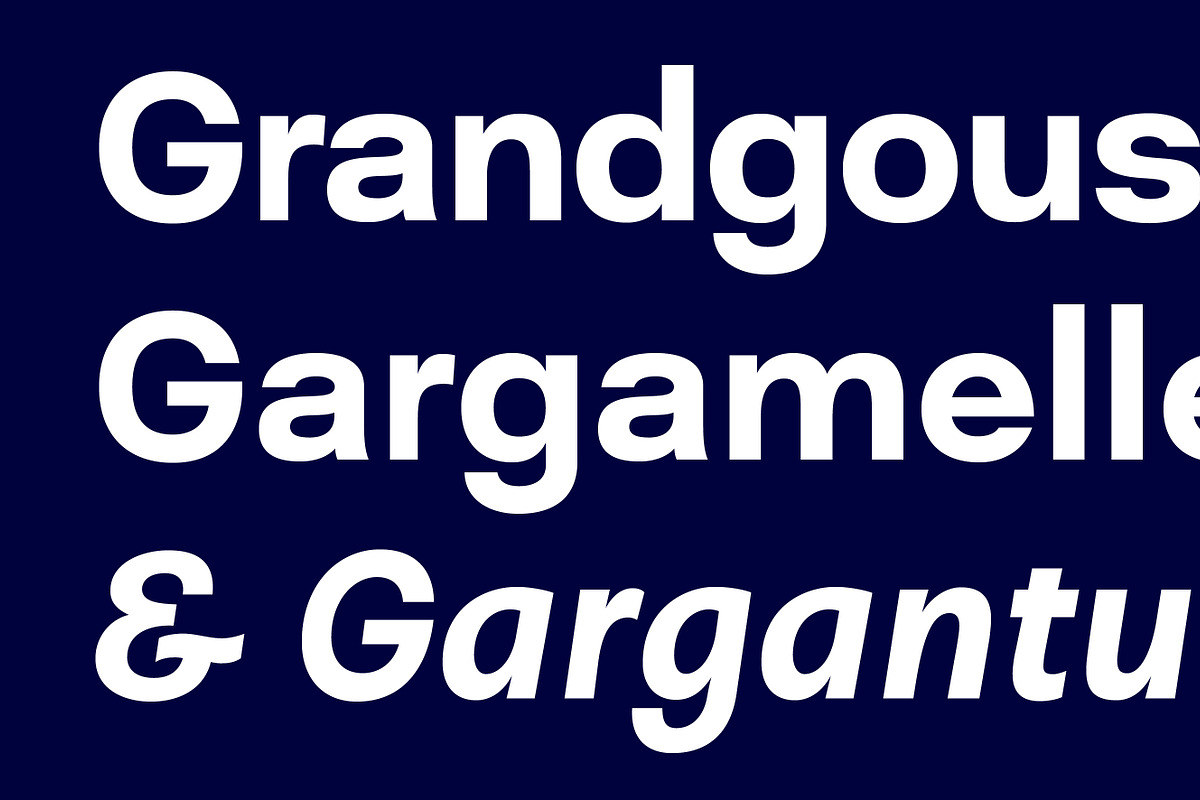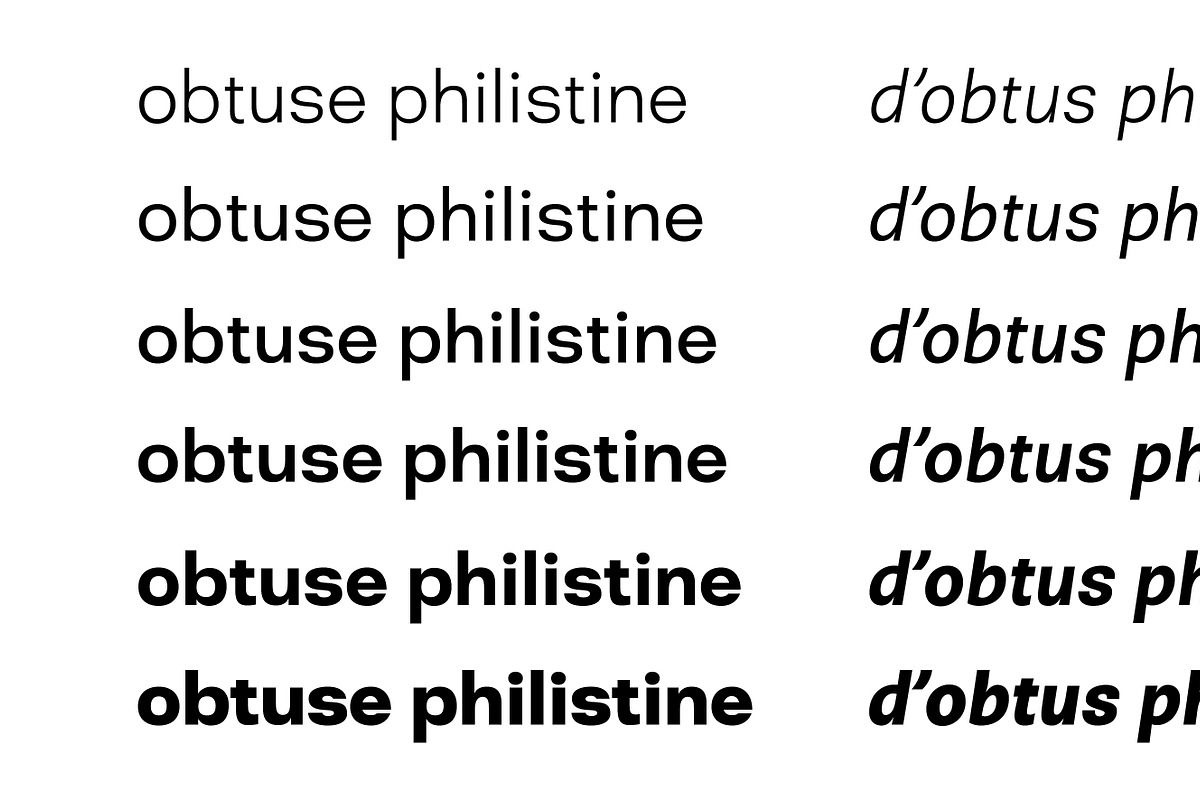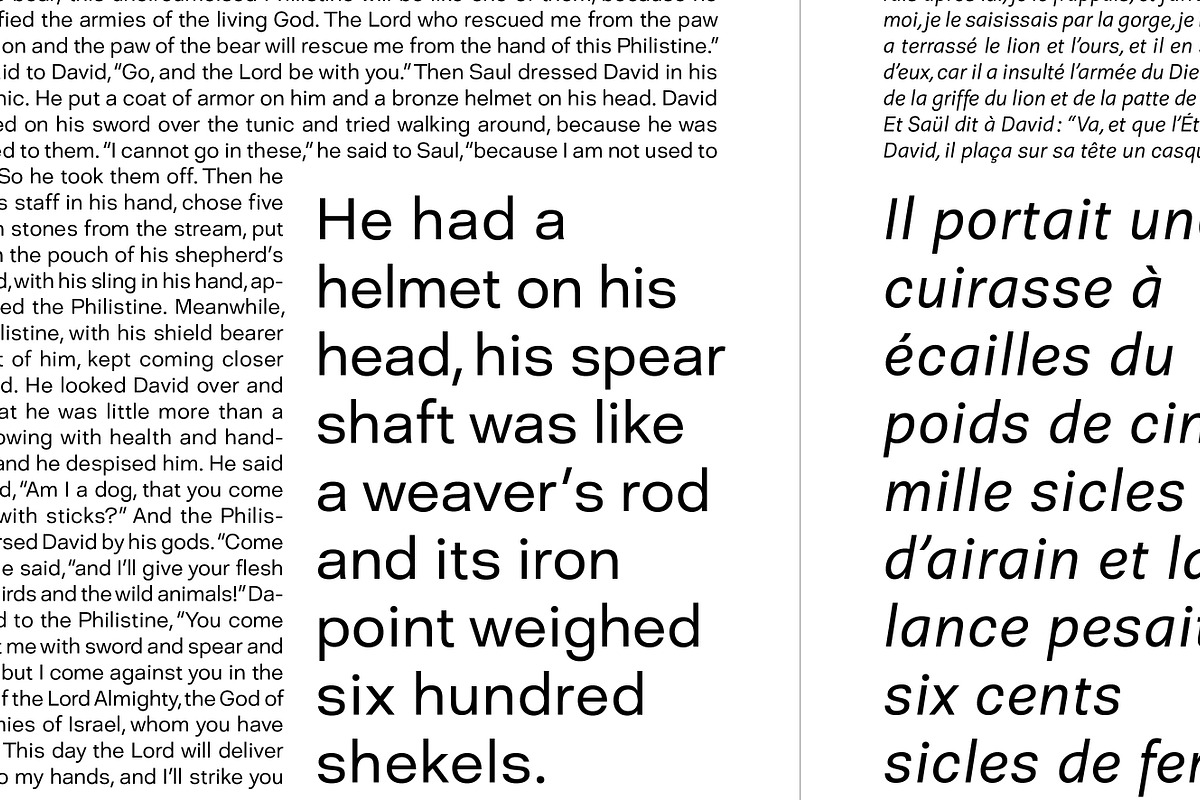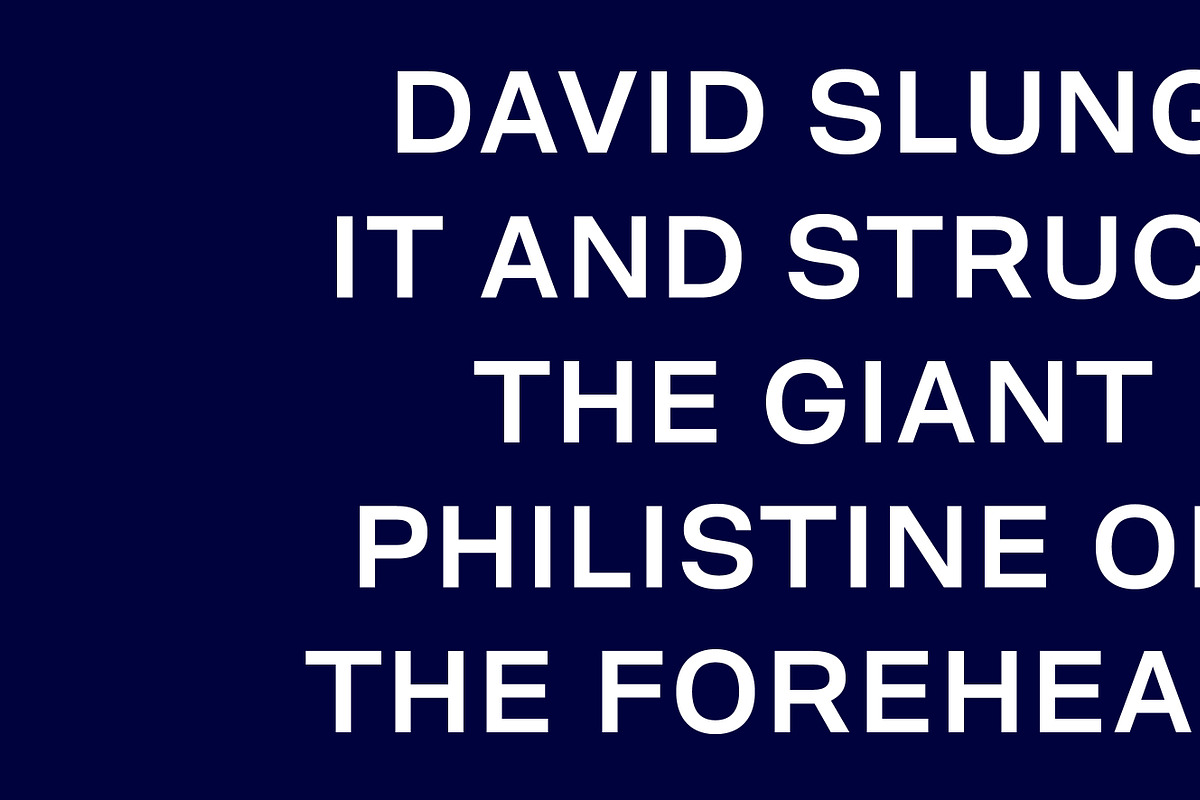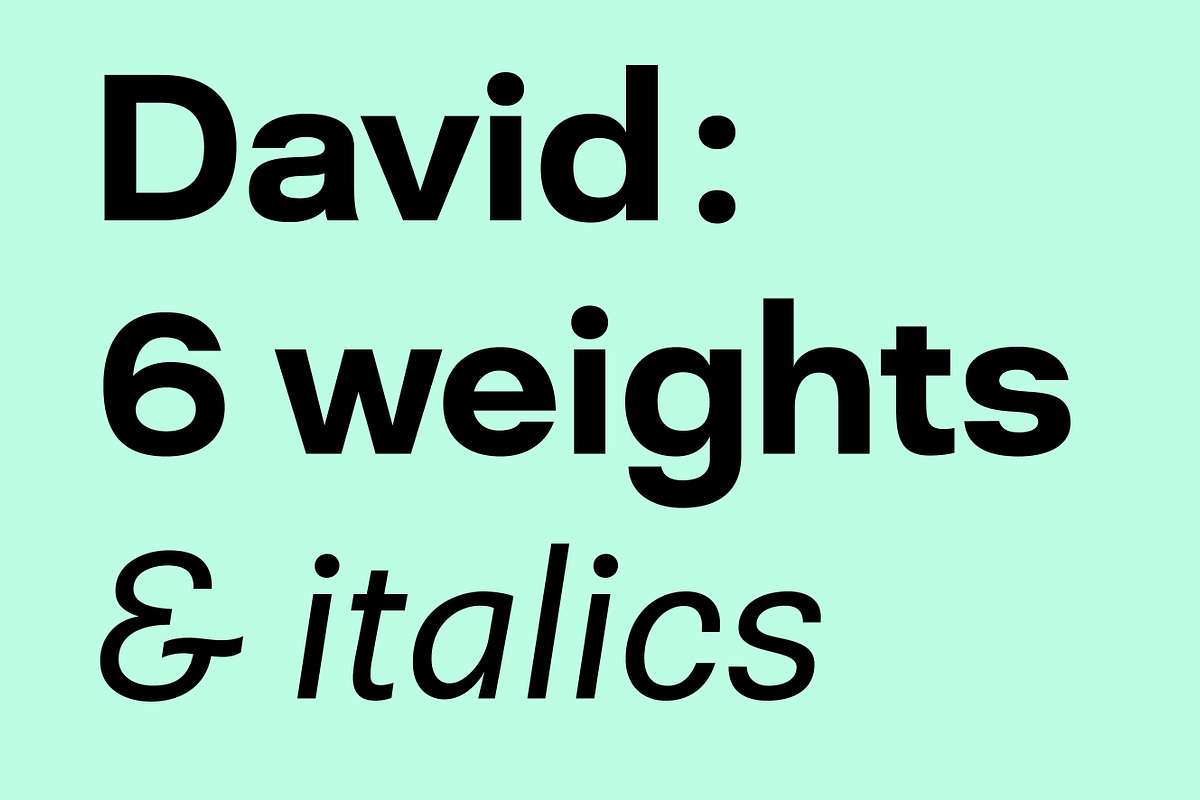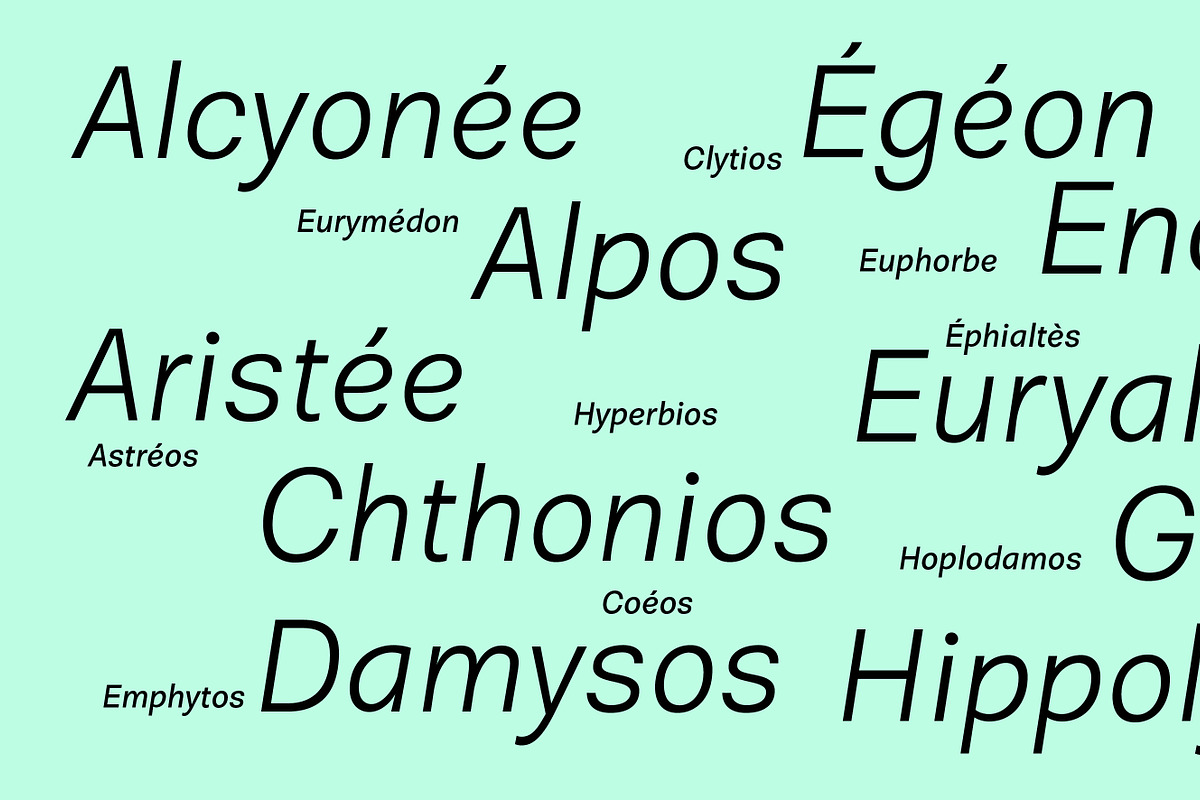
David
David is a sans-serif typeface inspired by Michelangelo's David statue. It's characterized by its sturdy and stable appearance, while still maintaining a spirited quality. The font family offers six weights, ranging from thin to heavy, making it suitable for a variety of corporate applications.